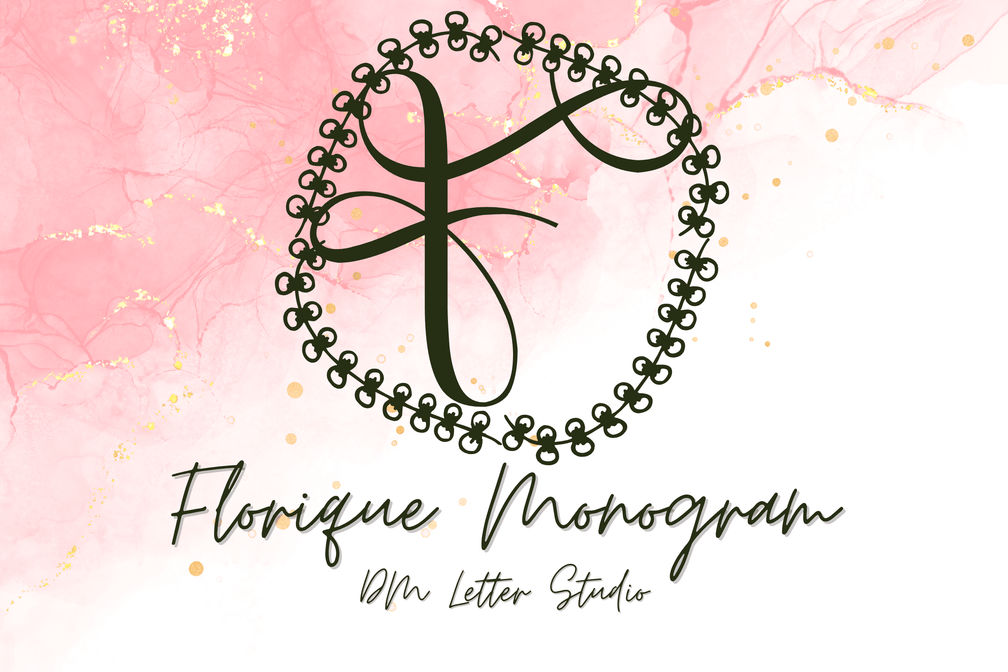
Florique Monogram
Florique Monogram – Luxurious Botanical Monogram Font
Florique Monogram is an elegant and high-end monogram font inspired by botanical flourishes and classic lettering. Each uppercase character is adorned with floral accents, blending timeless sophistication with organic detail. Ideal for wedding branding, upscale packaging, personal stationery, and boutique logos, Florique Monogram adds a refined, floral twist to any design.
• Floral-Accented Capitals: Each letter is uniquely detailed with flowing botanical elements.
• Perfect for Elegant Branding: Use for weddings, personal logos, gift packaging, and printed monograms.
• Luxury Meets Nature: A blend of ornate elegance and hand-drawn floral charm.
• Complete Character Set: Includes A–Z uppercase letters, numbers, punctuation, and multilingual accents.